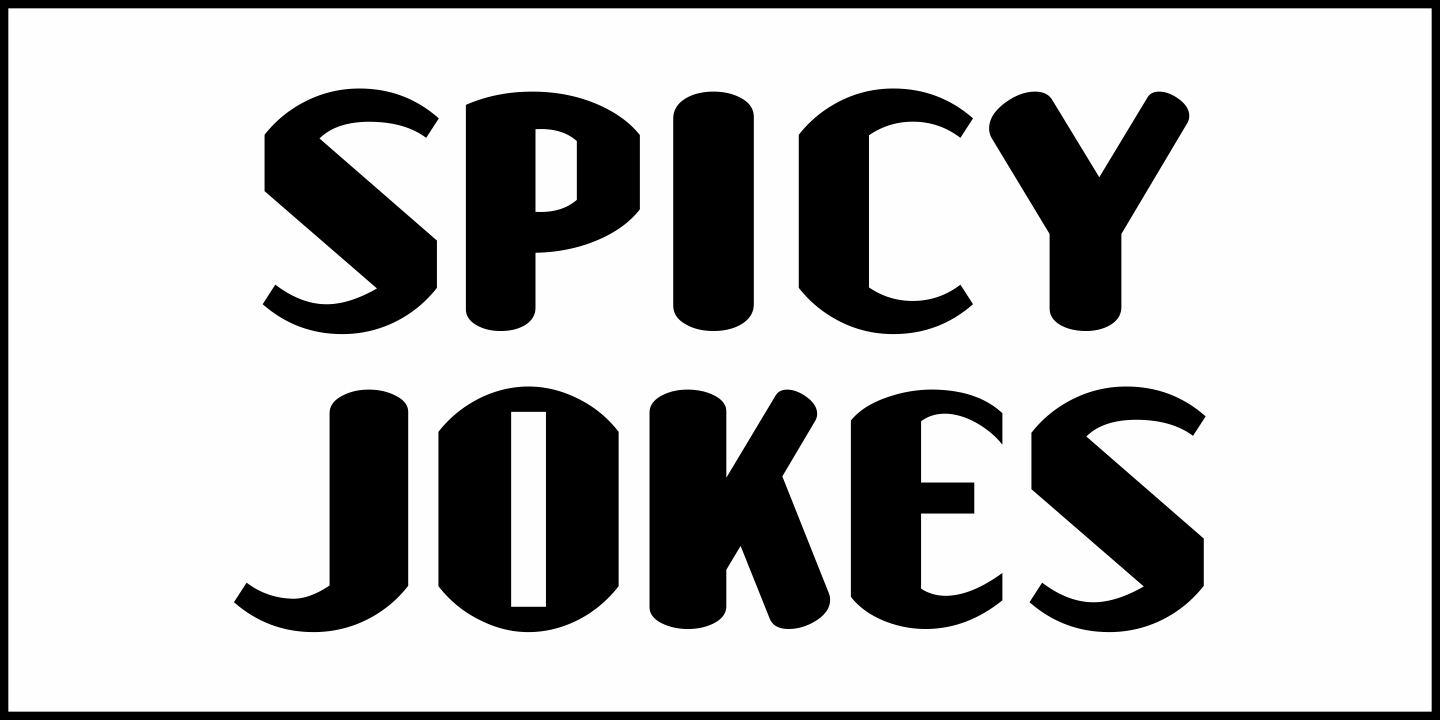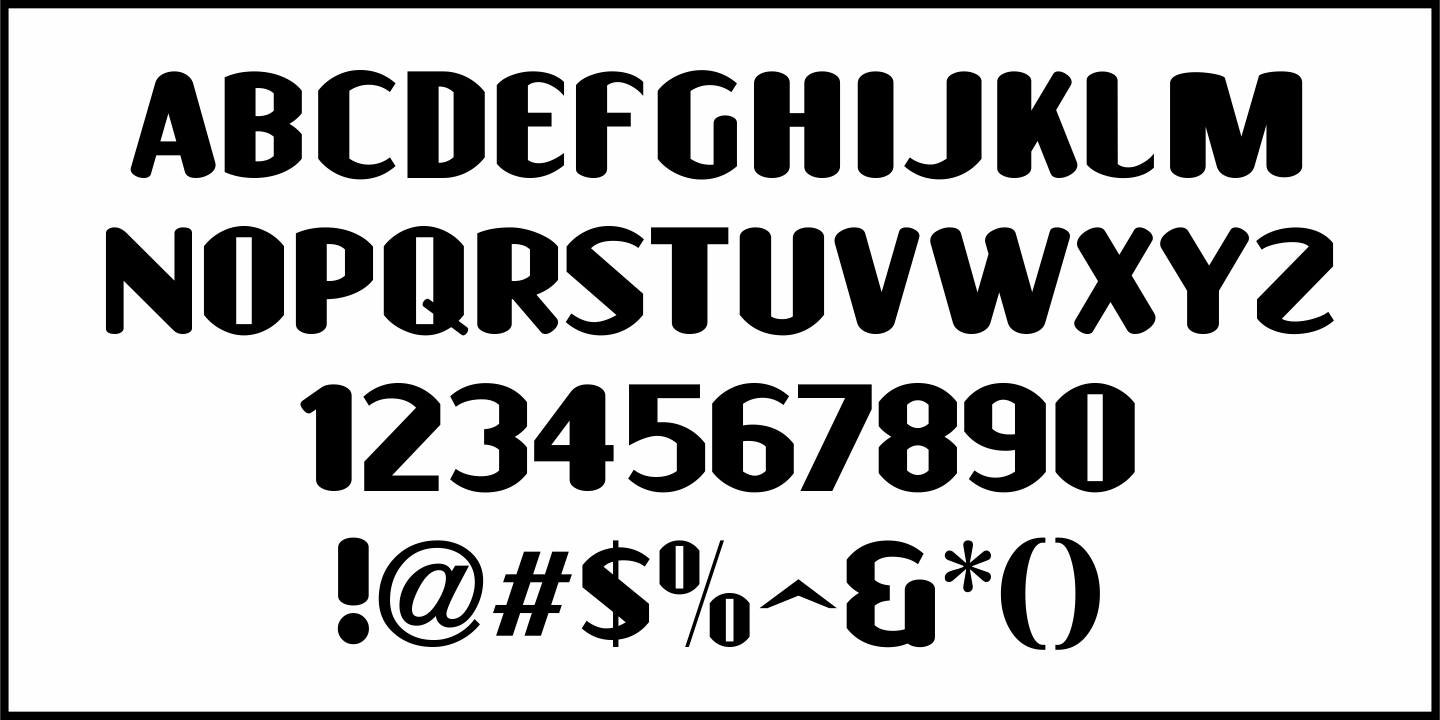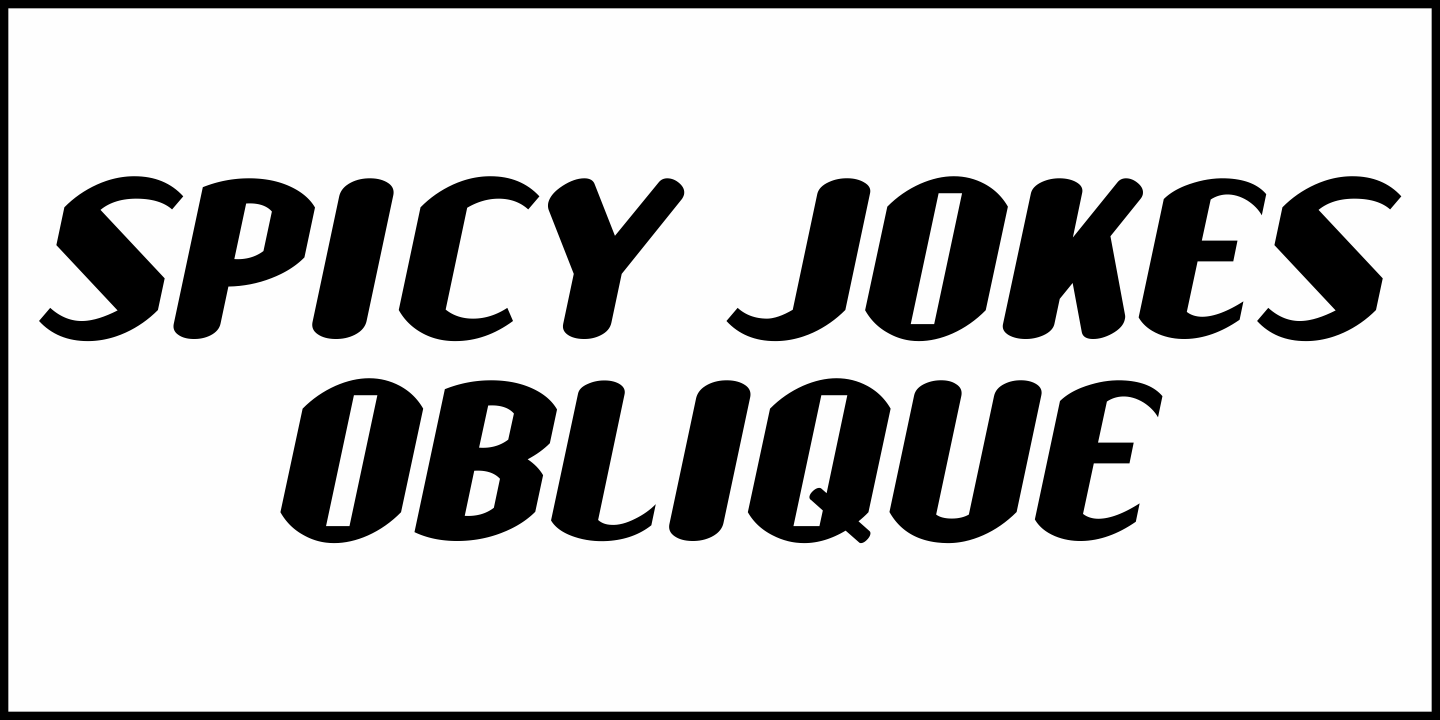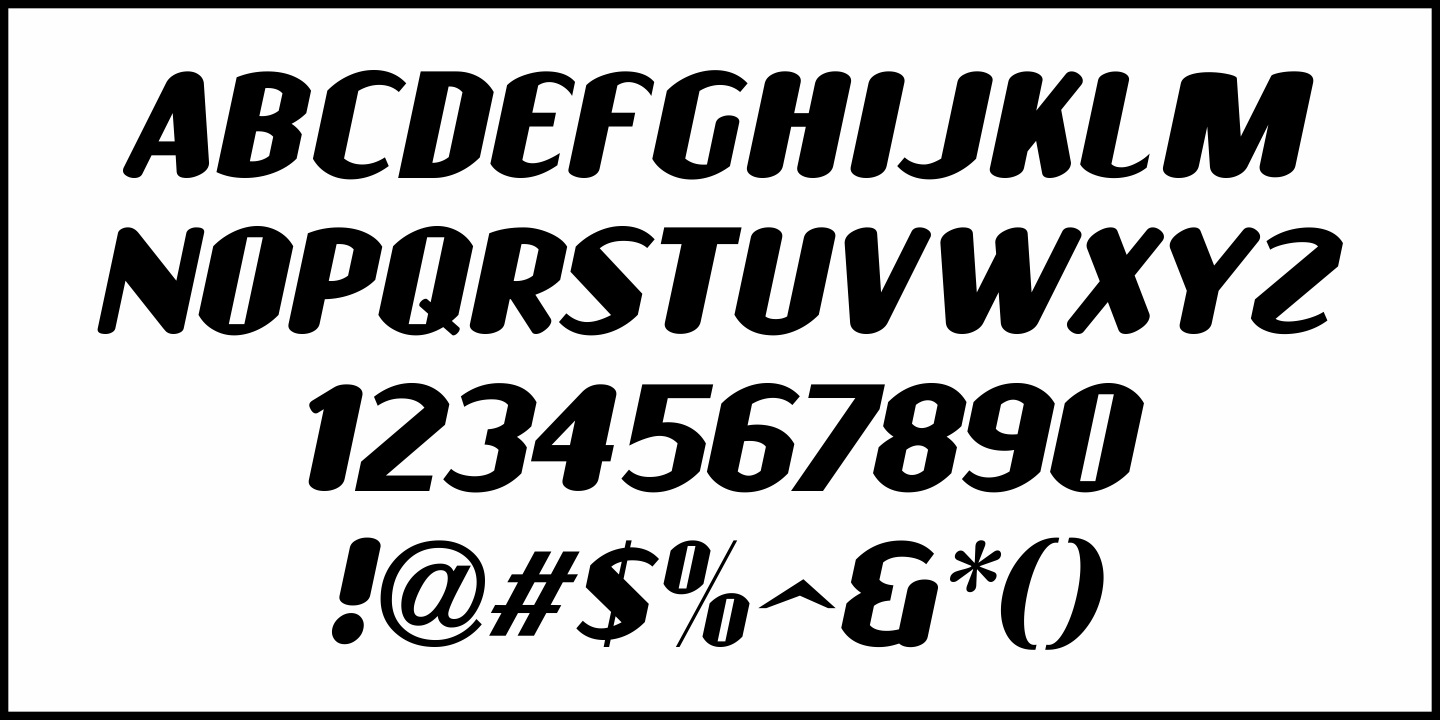
Spicy Jokes JNL
A 1915 publication entitled "Spicy Jokes" from Ottenheimer Publishers not only provided the inspiration for a digital typeface but the name as well for this quirky sans serif design.
The characters are hand lettered, with some having rounded tops which normally were flat; others having flattened sides to what would be rounded strokes.
Spicy Jokes JNL is available in both regular and oblique versions.